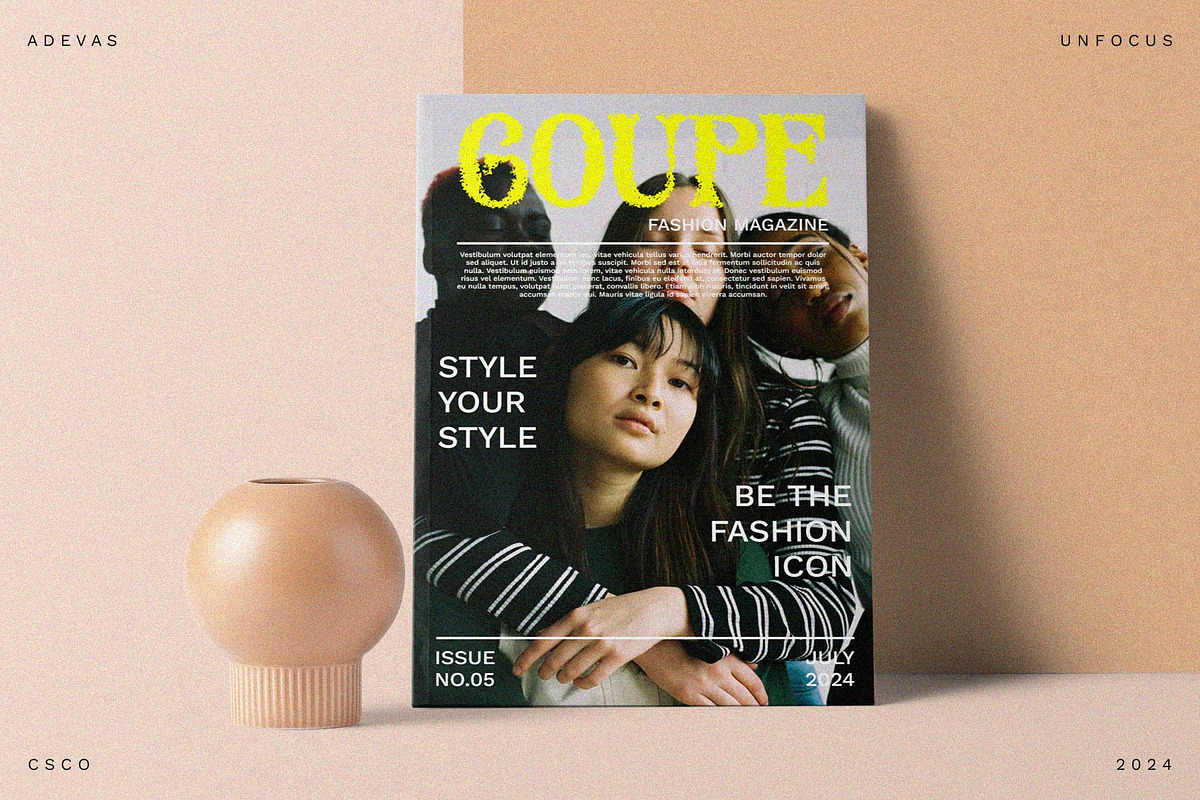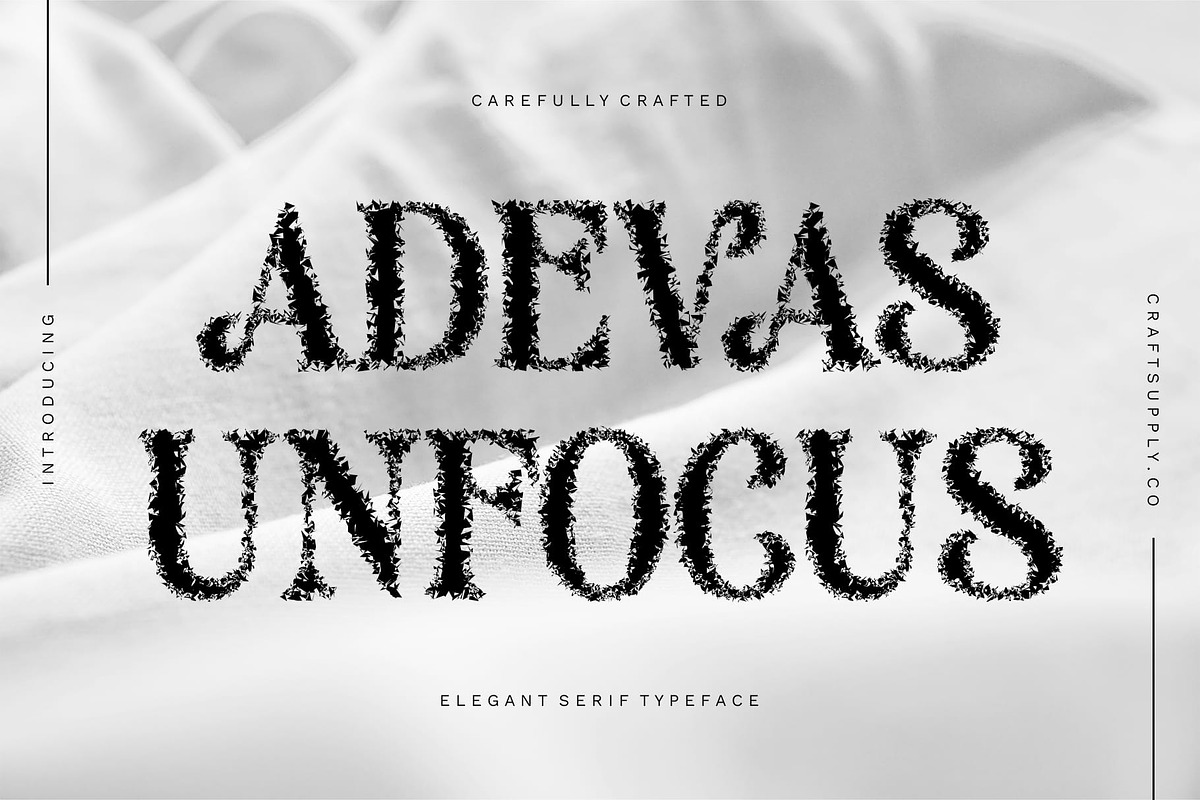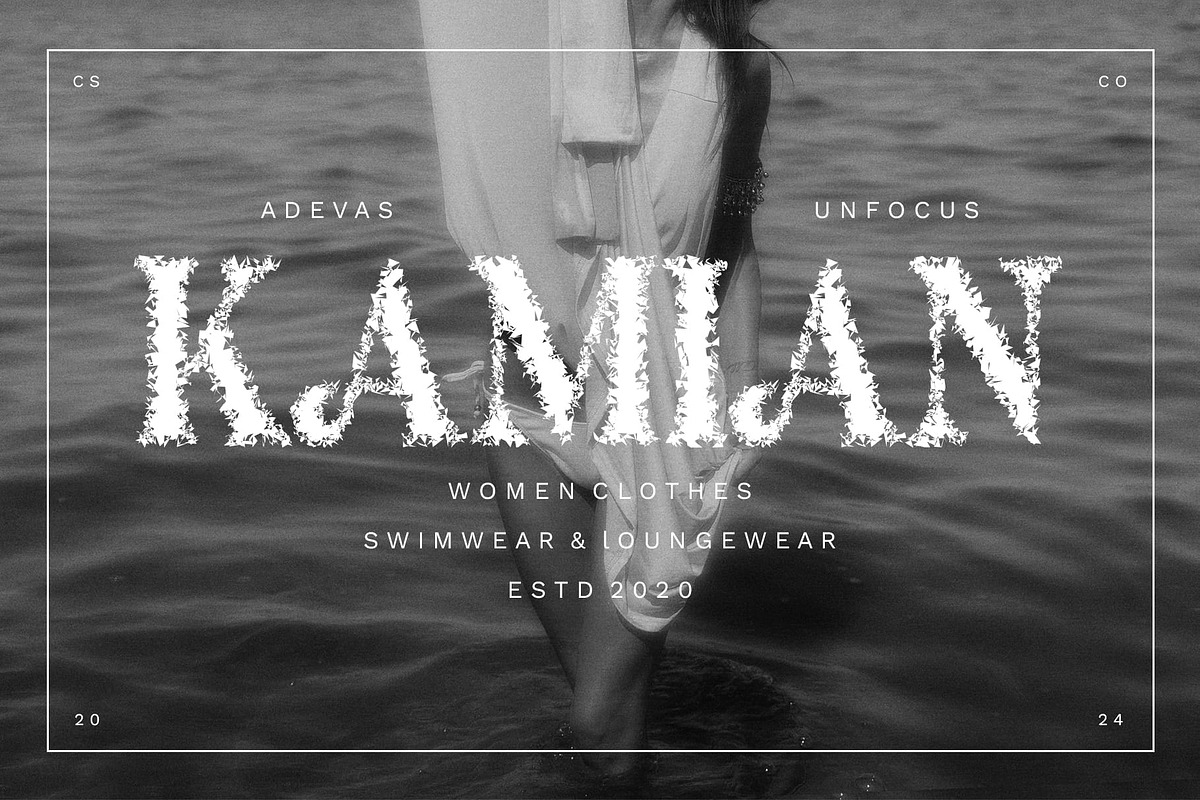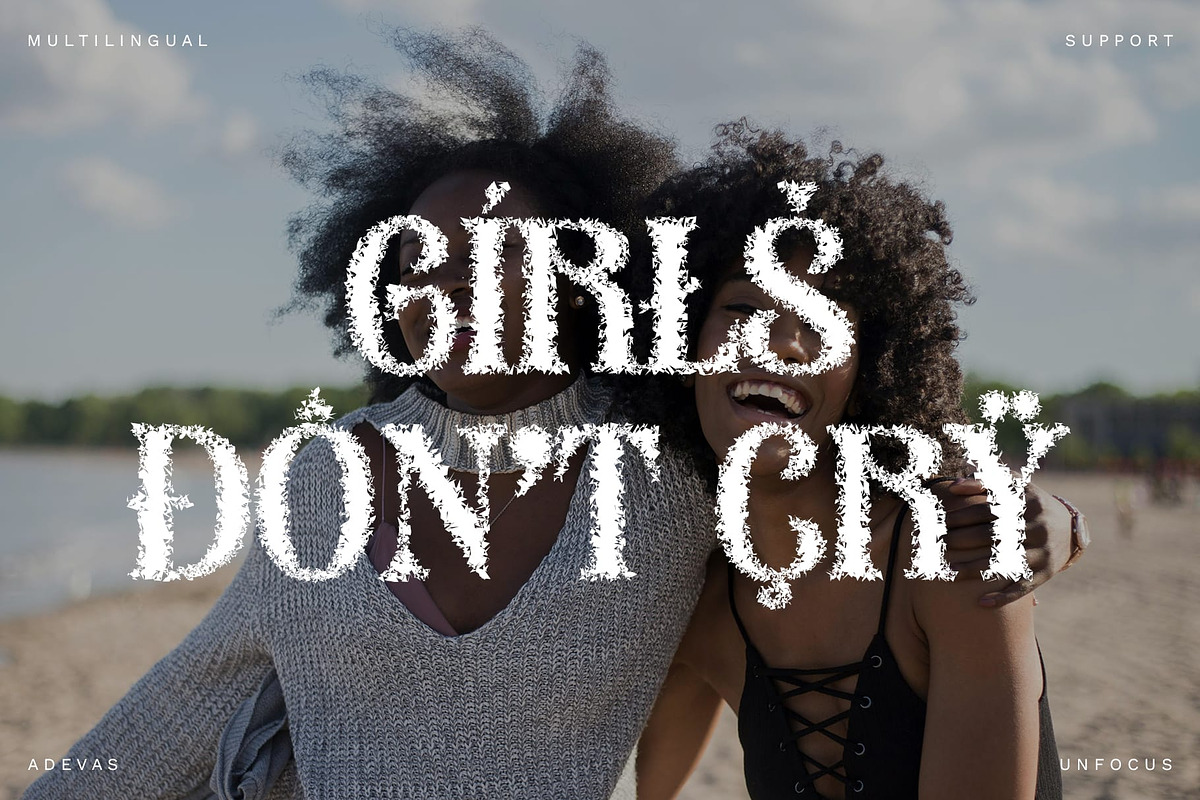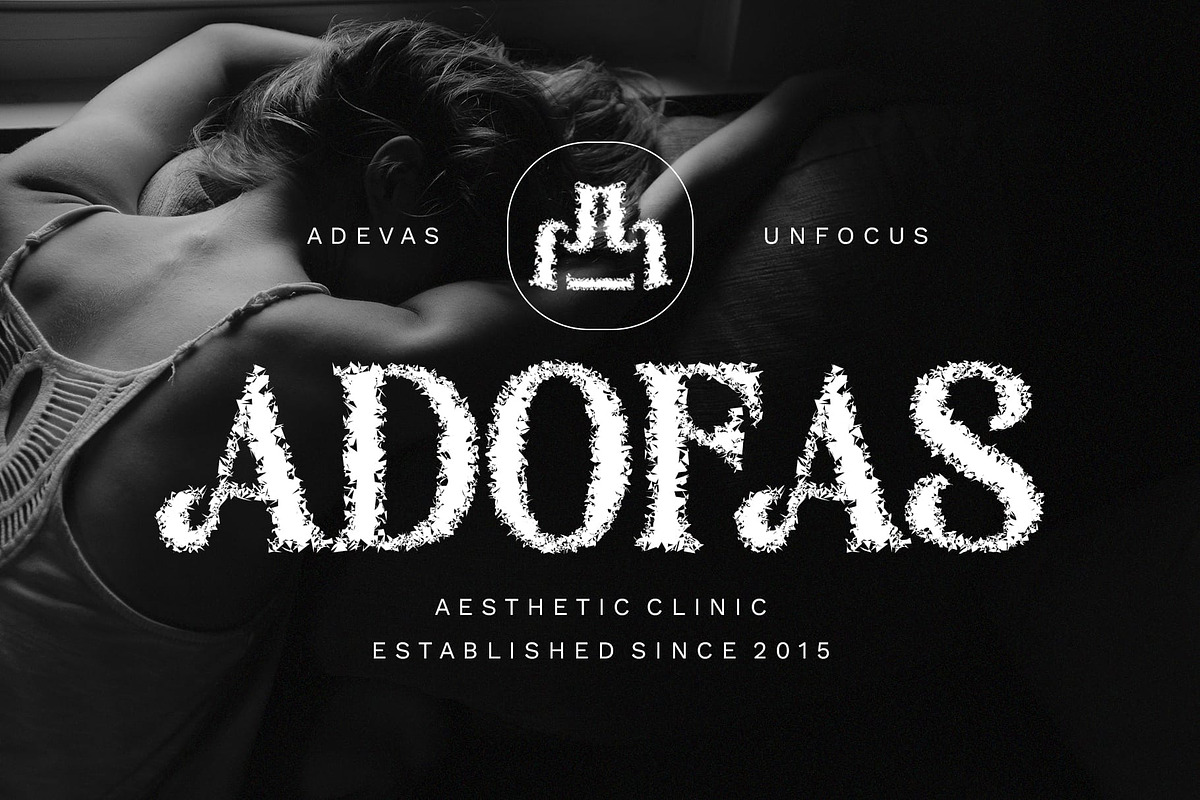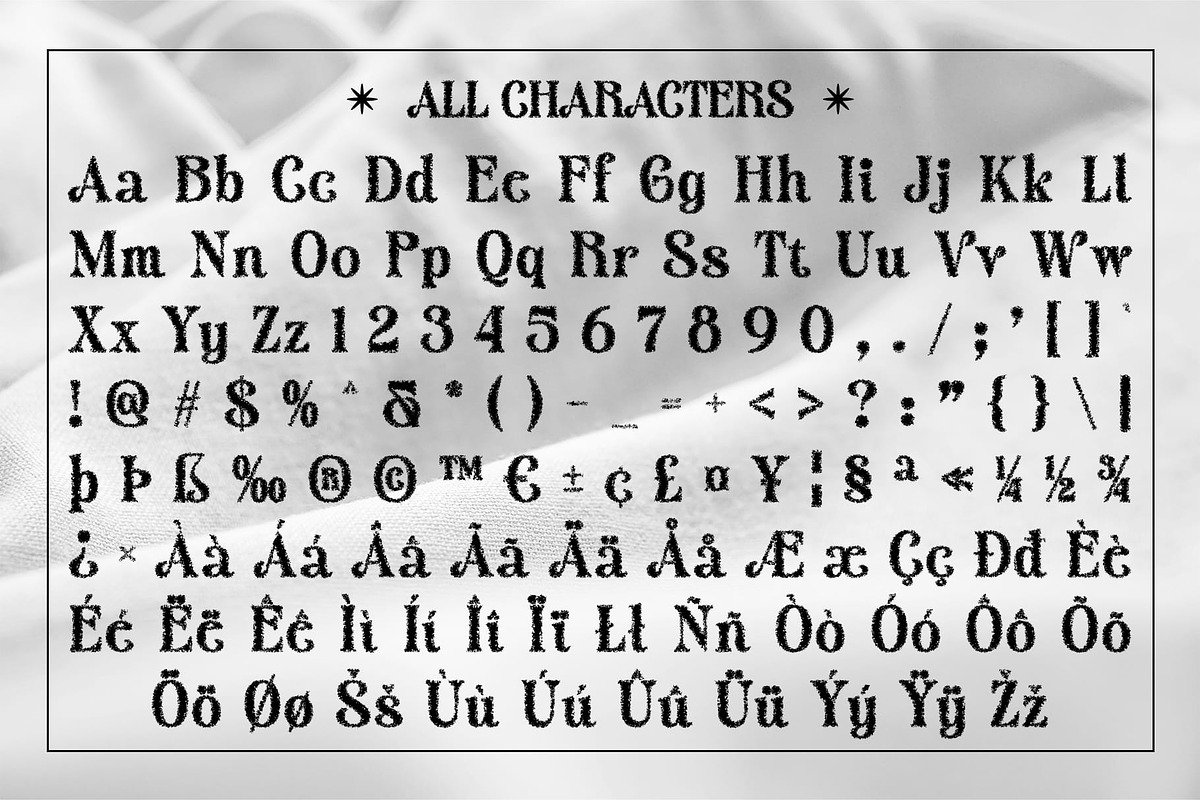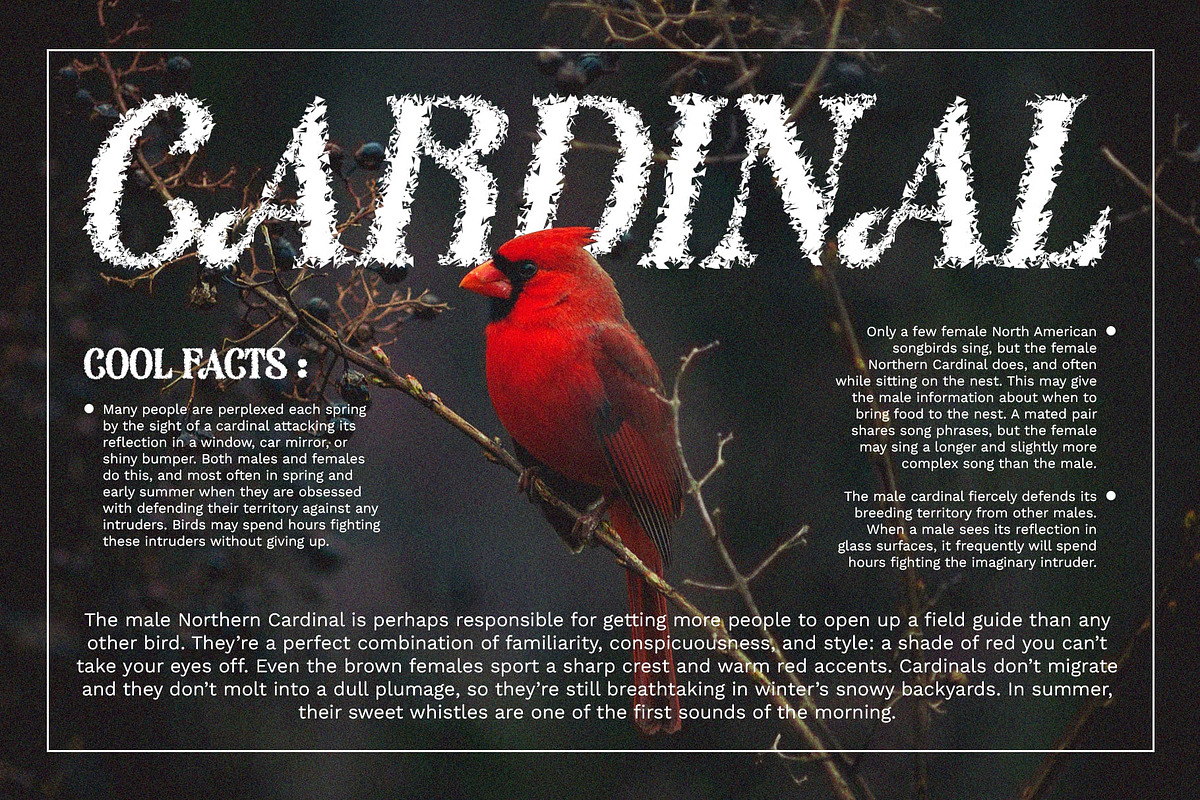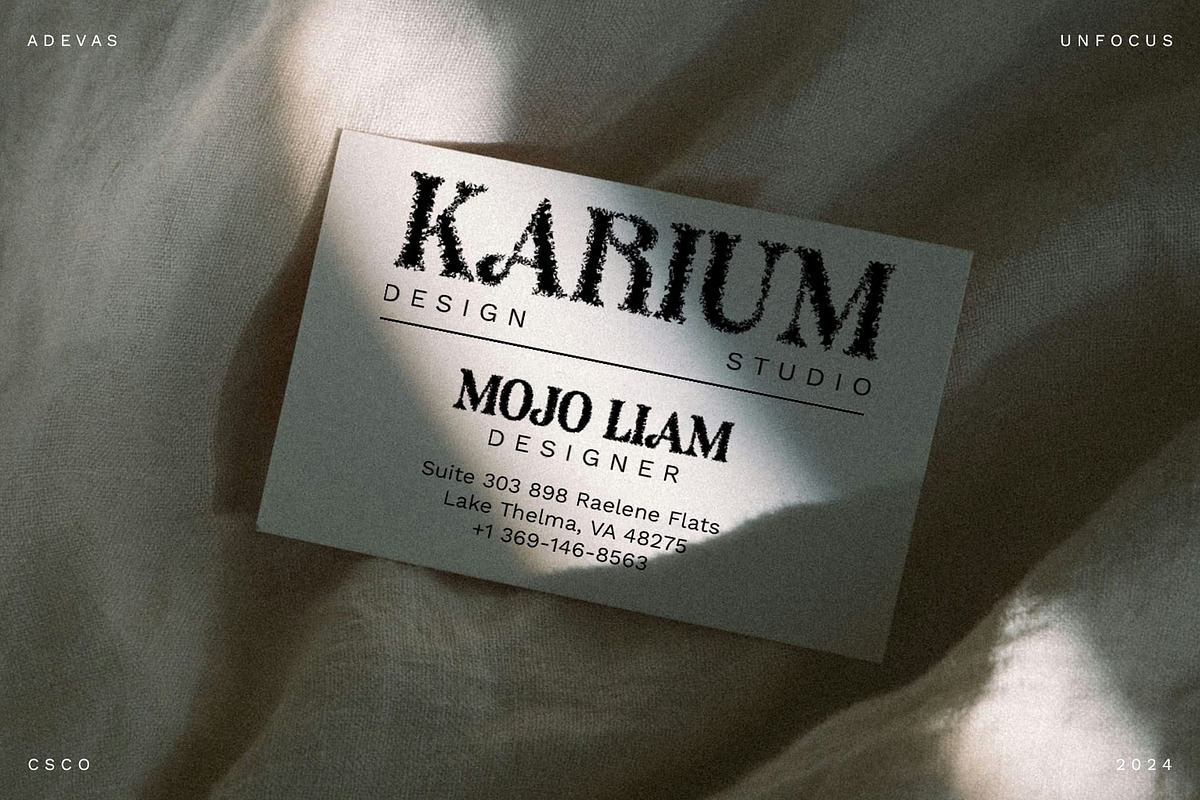
Adevas Unfocus
Adevas Unfocus: Elegant Sophistication with Artistic Flair
Refined and Artistic Appearance
Adevas Unfocus is a beautiful serif font with an elegant design and a unique unfocused effect. Perfect for sophisticated projects, it adds a touch of refinement and artistic flair to branding, editorial layouts, and high-end packaging.
Ideal for Sophisticated Projects
With its elegant and refined design, Adevas Unfocus is ideal for sophisticated projects. This font enhances the aesthetic quality of your work, making it suitable for luxurious branding and artistic endeavors.
Perfect for Editorial Layouts
Adevas Unfocus elevates editorial layouts with its beautiful and distinctive appearance. Its unfocused effect adds an artistic touch, making it perfect for high-end magazines, books, and other publications that require a sophisticated and unique look.
Enhance High-End Packaging
Enhance high-end packaging with Adevas Unfocus, a font that brings elegance and creativity to your design. Its refined serif characters and artistic unfocused effect ensure your packaging stands out with a luxurious and memorable impression.